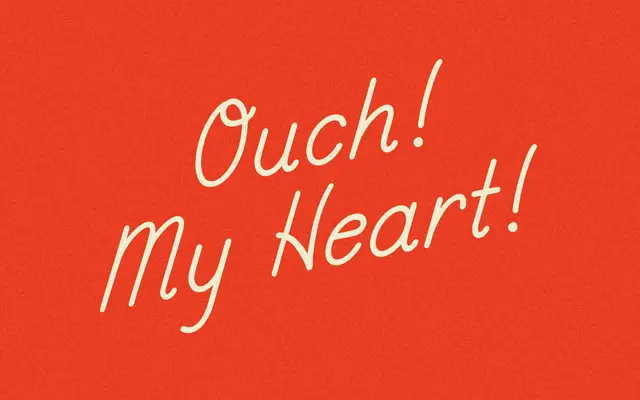
Cupid
Taylor Penton · Taylor Penton, Joe Goldsmith
A semi-monospaced typeface drawn from handwriting sources, made in collaboration with Joe Goldsmith and aimed at casual branding and personal use.
Developed with Joe Goldsmith, Cupid takes handwritten letterforms and tidies them into a semi-monospaced structure suitable for logos, packaging and wedding stationery. The single Regular weight ships as OTF, WOFF and WOFF2 with 150 glyphs covering basic Latin and a limited set of accented characters. Reviewers have used it for wedding collateral and brand identity work where an informal but legible hand is wanted.
Described explicitly as semi-monospaced with handwriting origins, placing it in the mono category with a casual, script-influenced character rather than a technical or coding context.